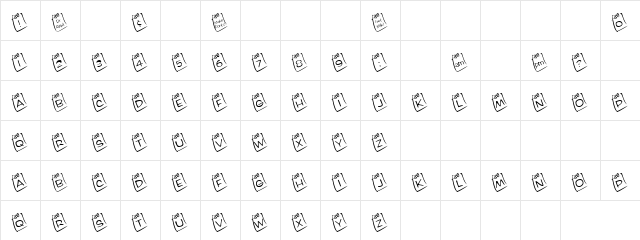
Clip Board Regular
Design Context for Clip Board Typeface
Clip Board is a composed and adaptable typeface that performs quietly and consistently across a wide range of design contexts.